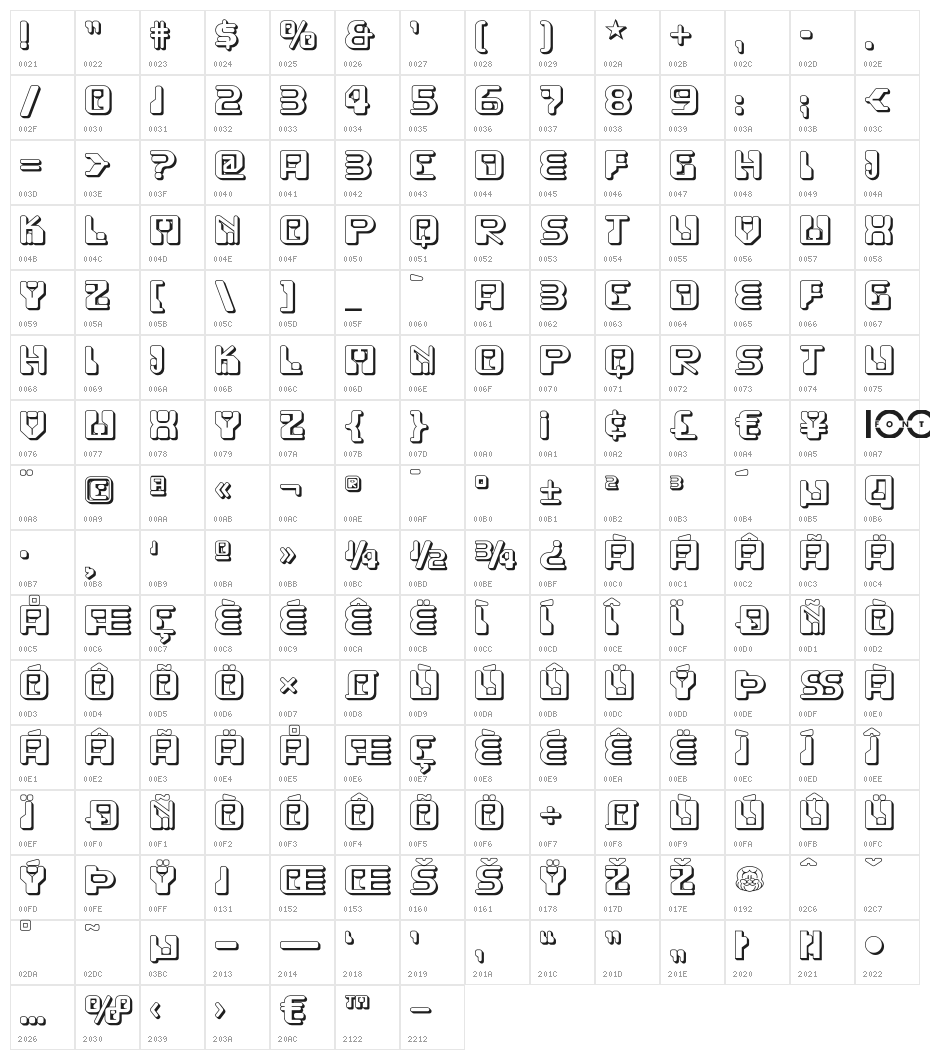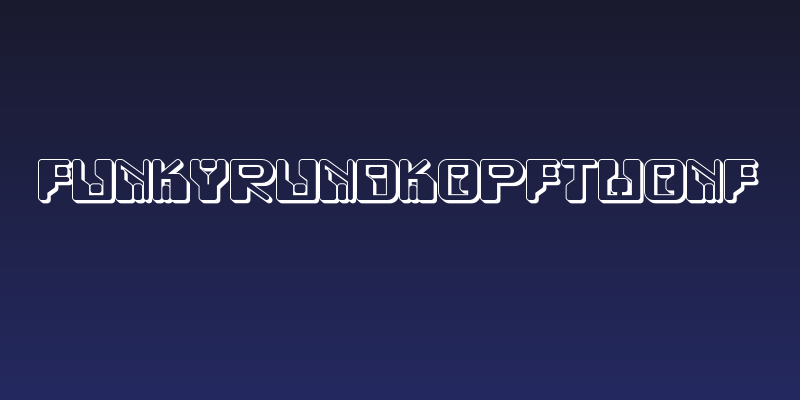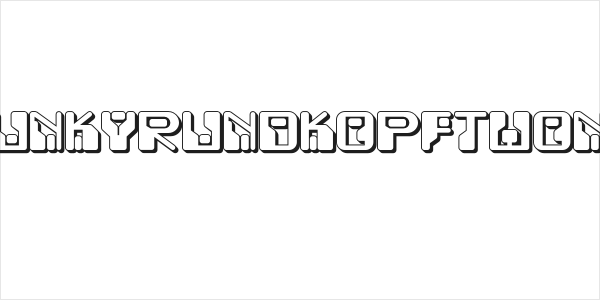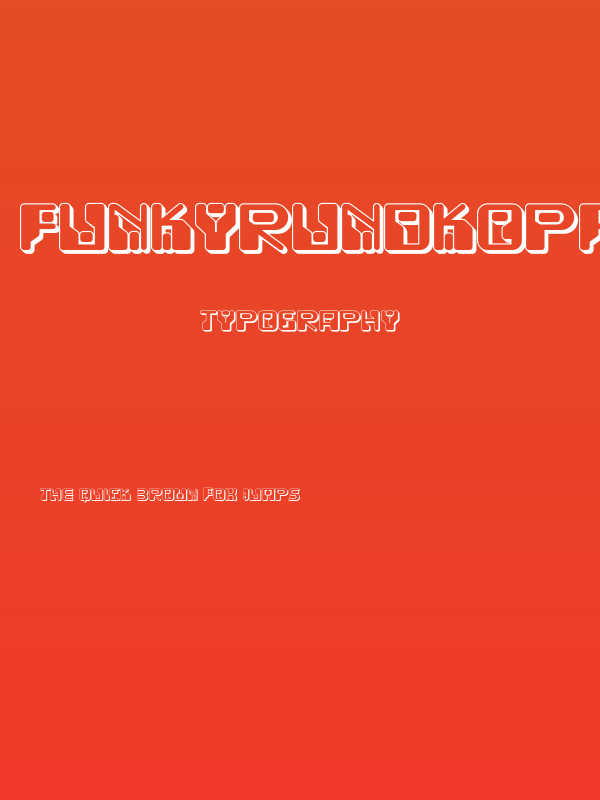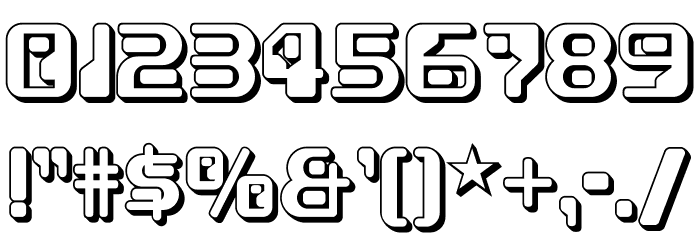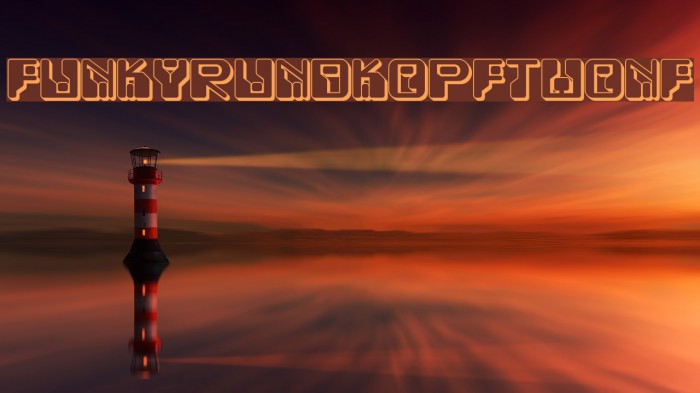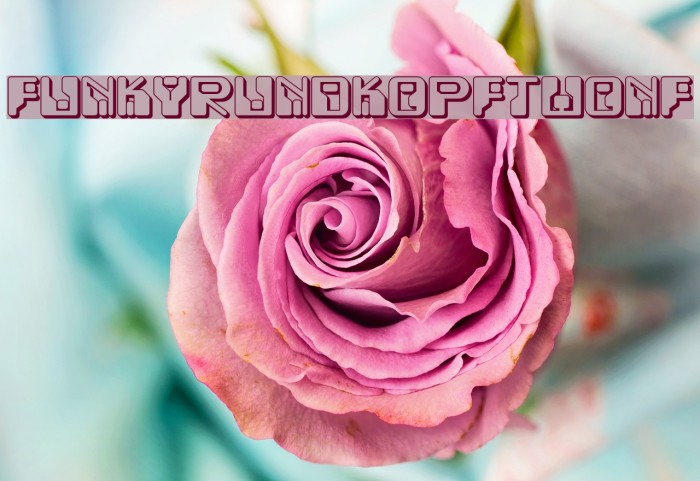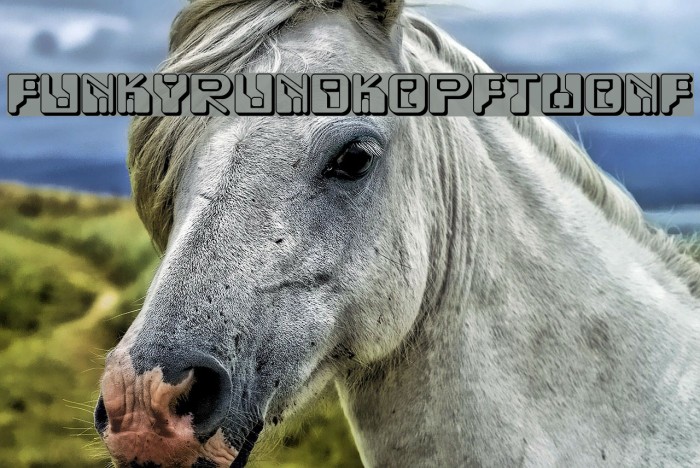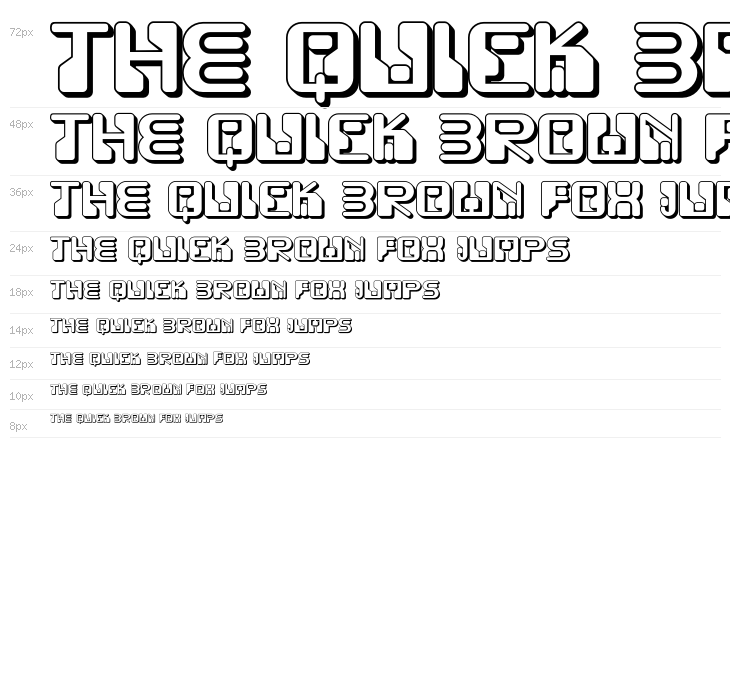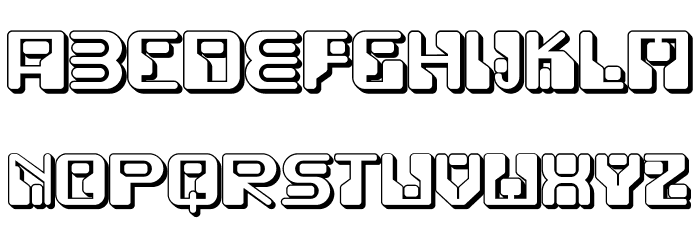
FunkyRundkopfTwoNF Font
FunkyRundkopfTwoNF Description
This font features a bold, geometric style with a distinct outline that gives it a three-dimensional appearance. The characters are constructed with straight lines and sharp angles, creating a futuristic and industrial feel. The uppercase letters are uniform in height, while the lowercase letters maintain a consistent style, enhancing readability. Numbers and special characters follow the same design principles, ensuring a cohesive look across all glyphs. The font's unique design makes it stand out, making it ideal for attention-grabbing projects.
| Overall Style | Futuristic, Industrial |
| Proposed Projects | Ideal for posters, video game graphics, sci-fi themed projects, and branding that requires a modern, edgy look. |